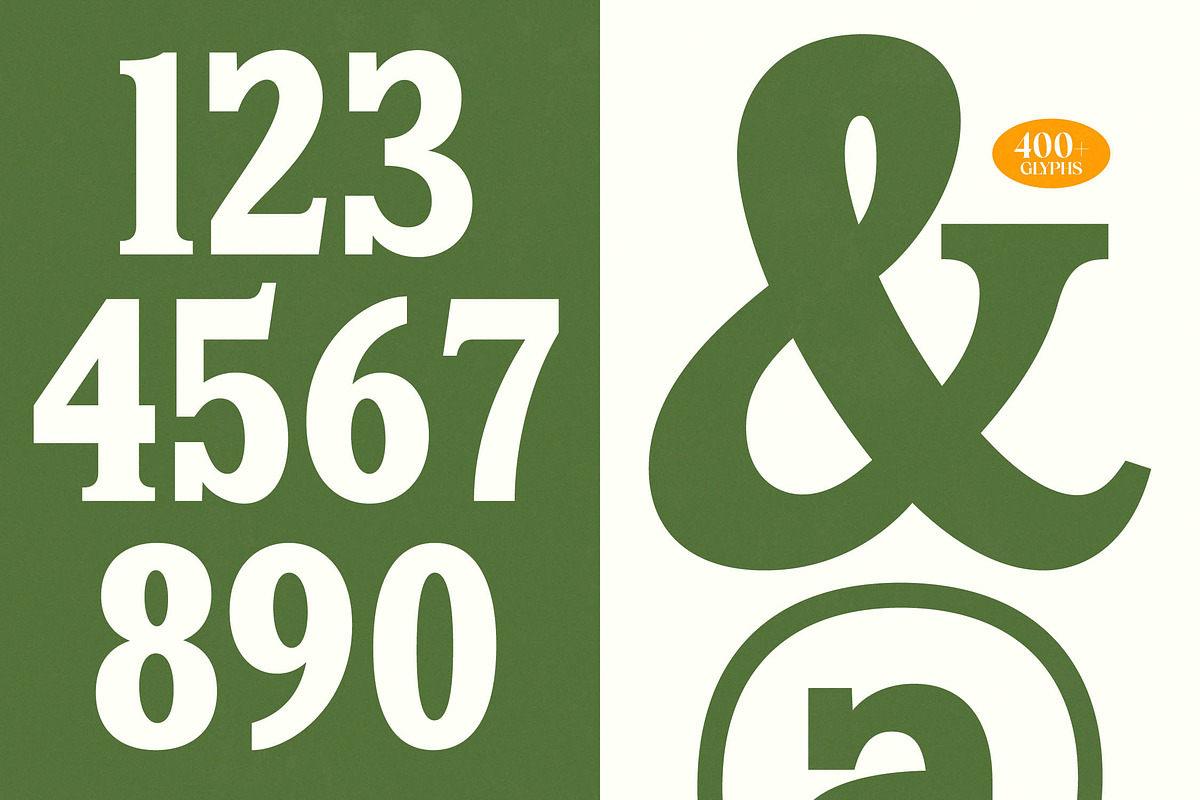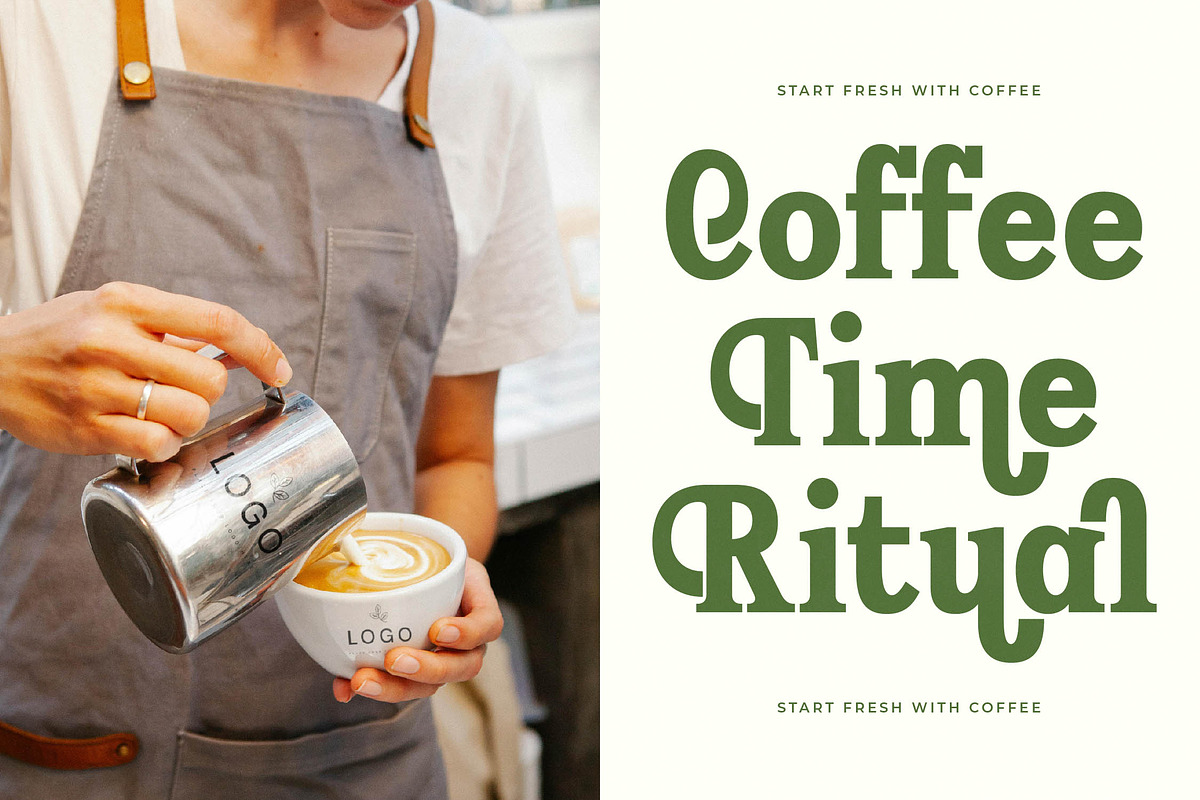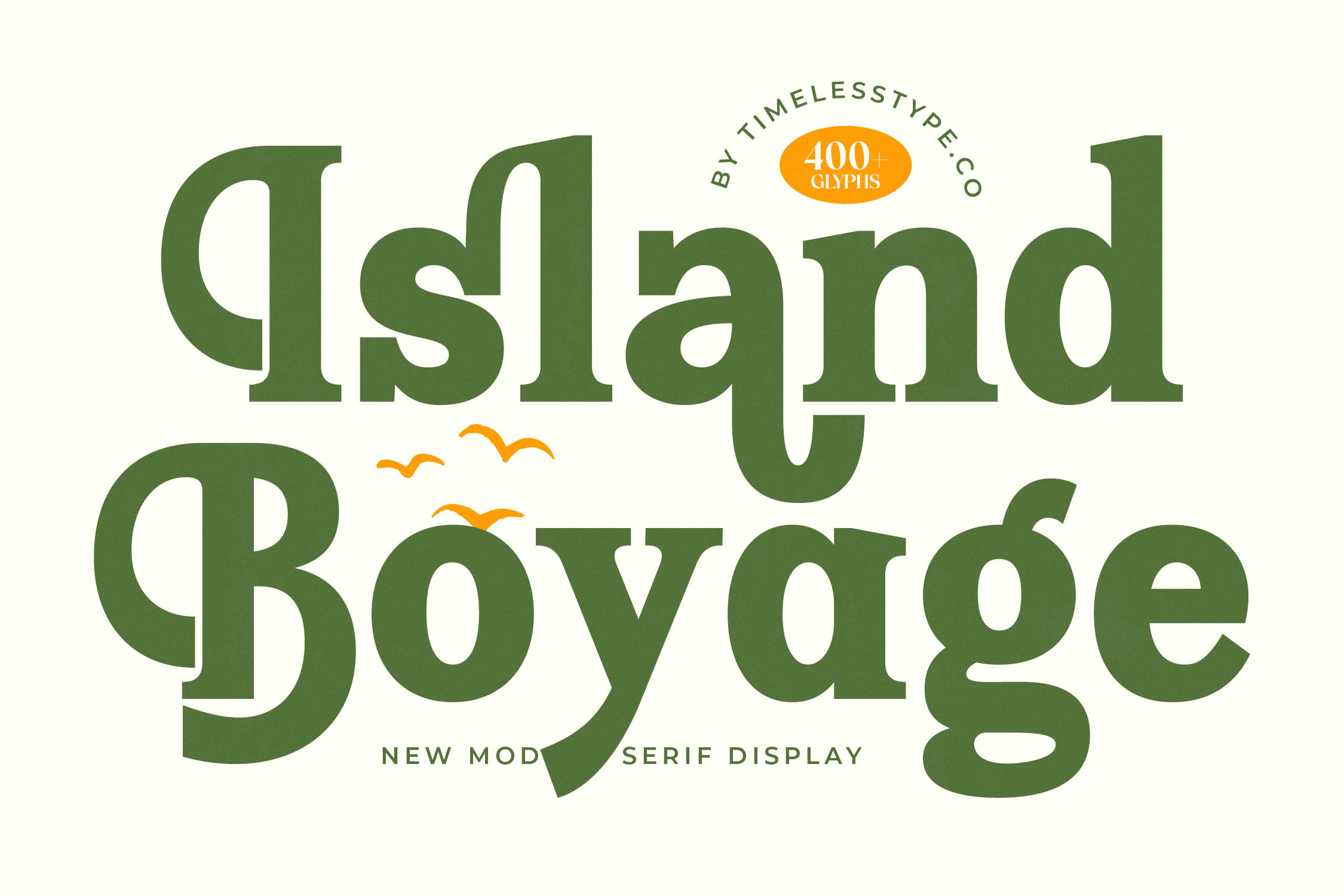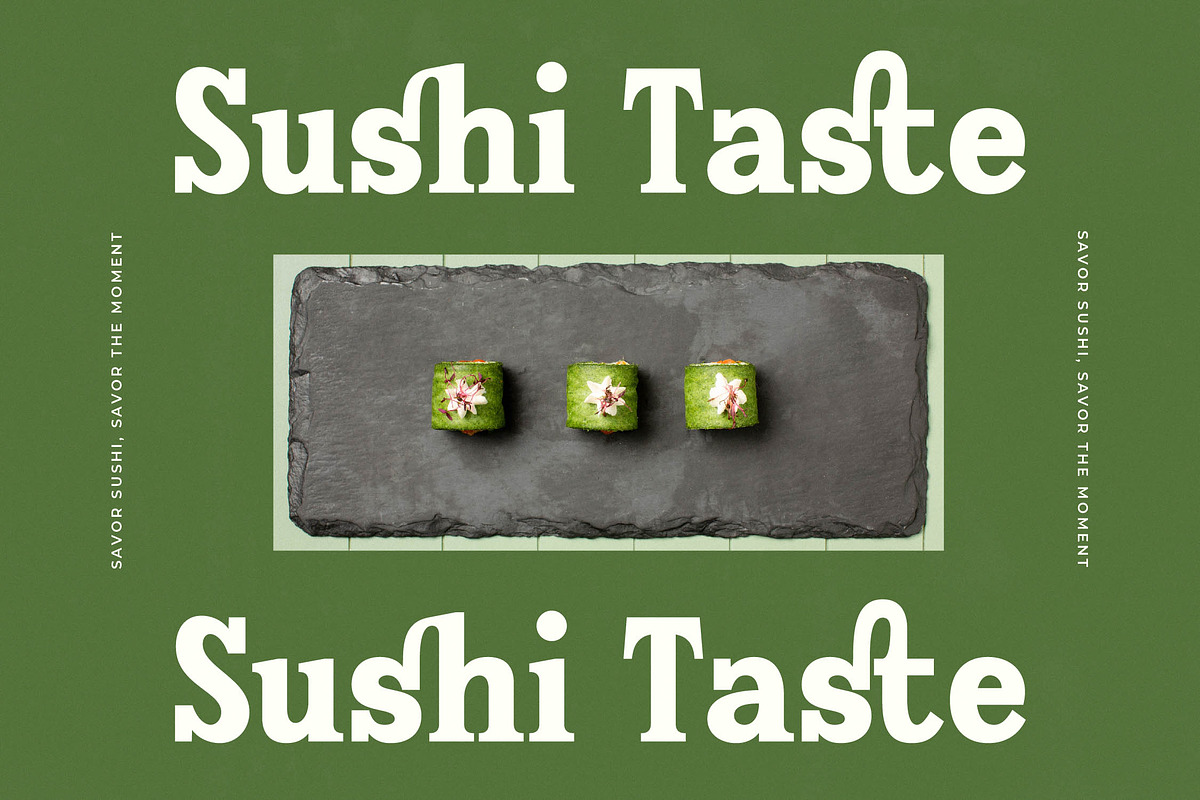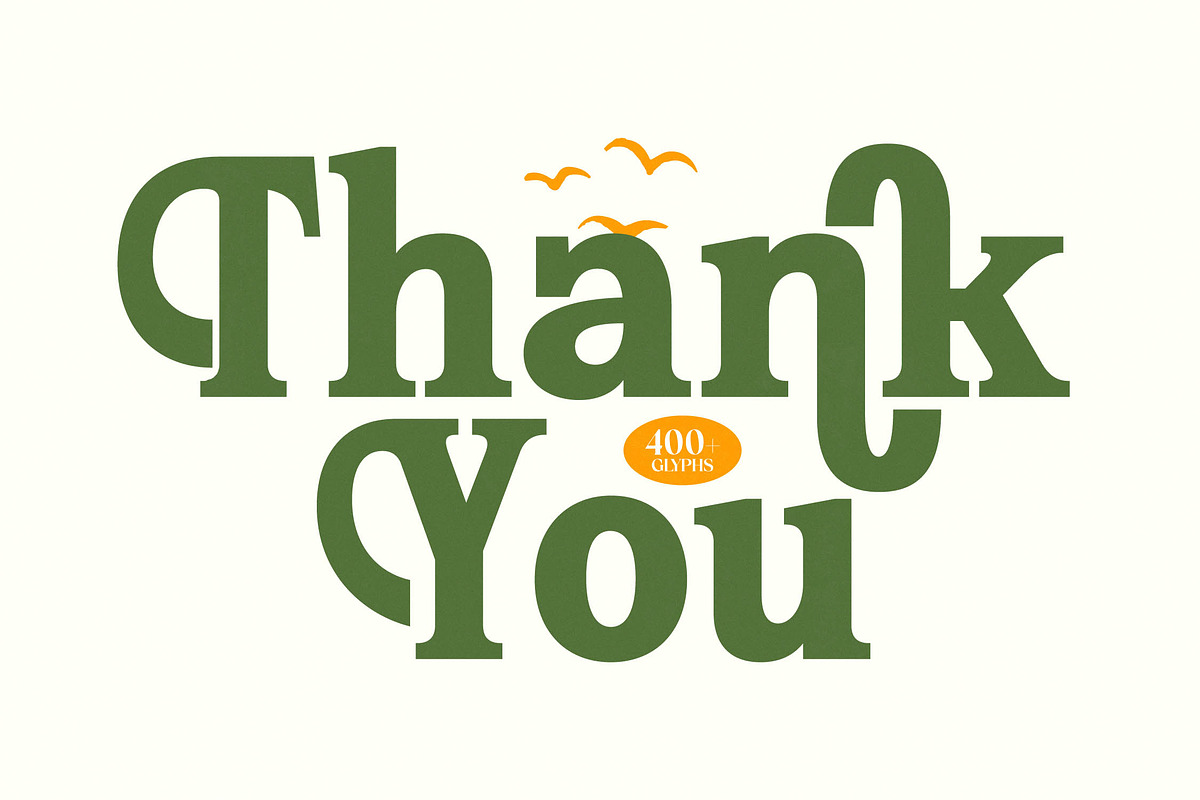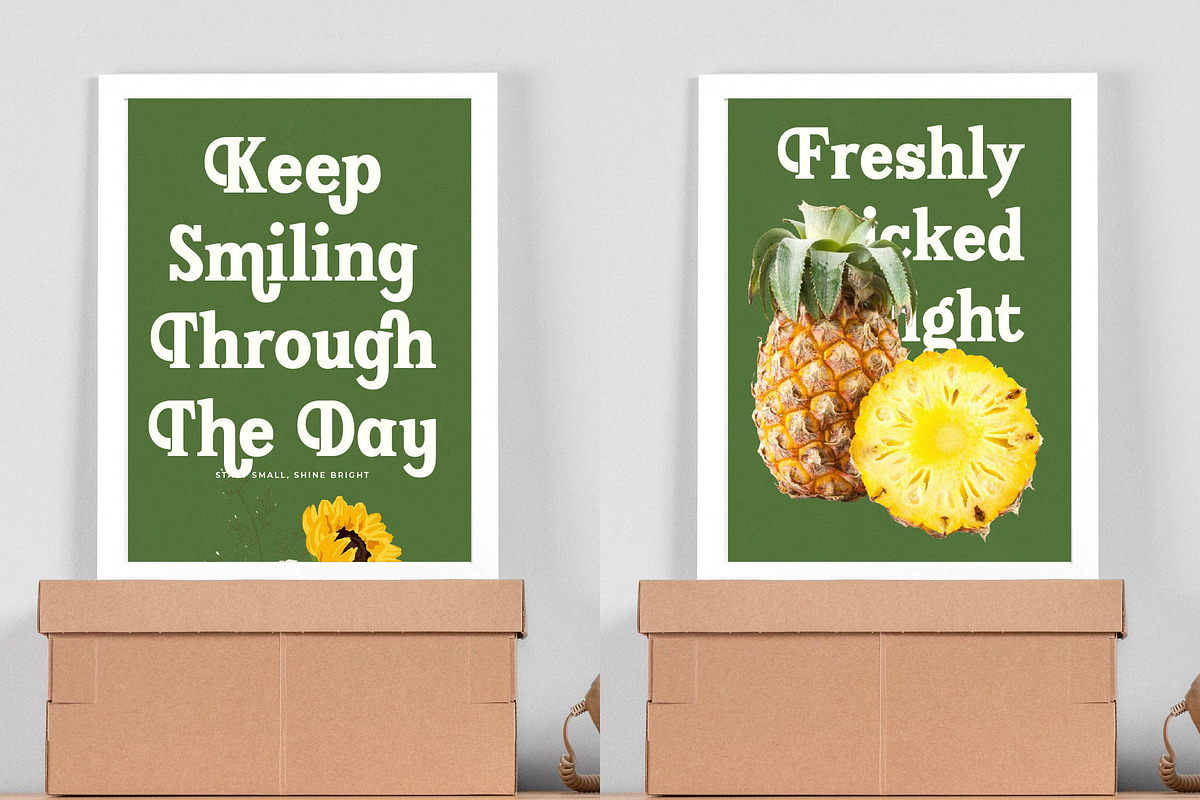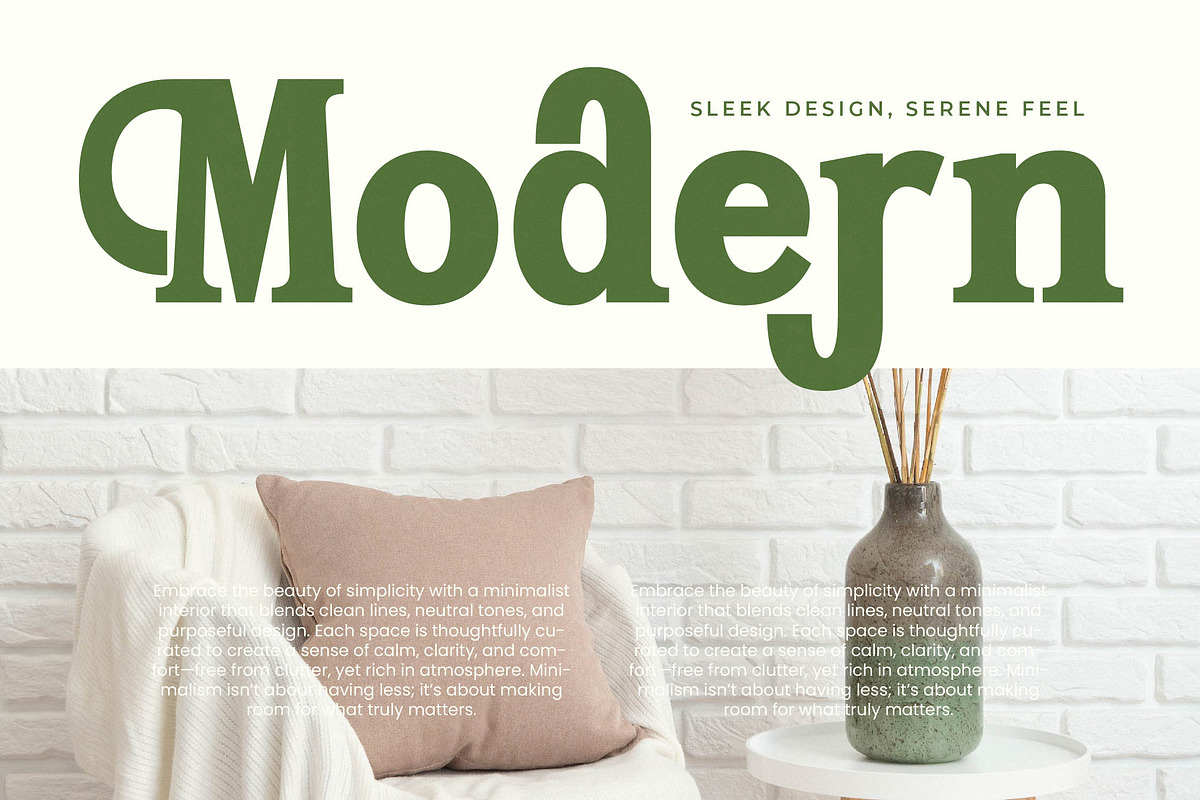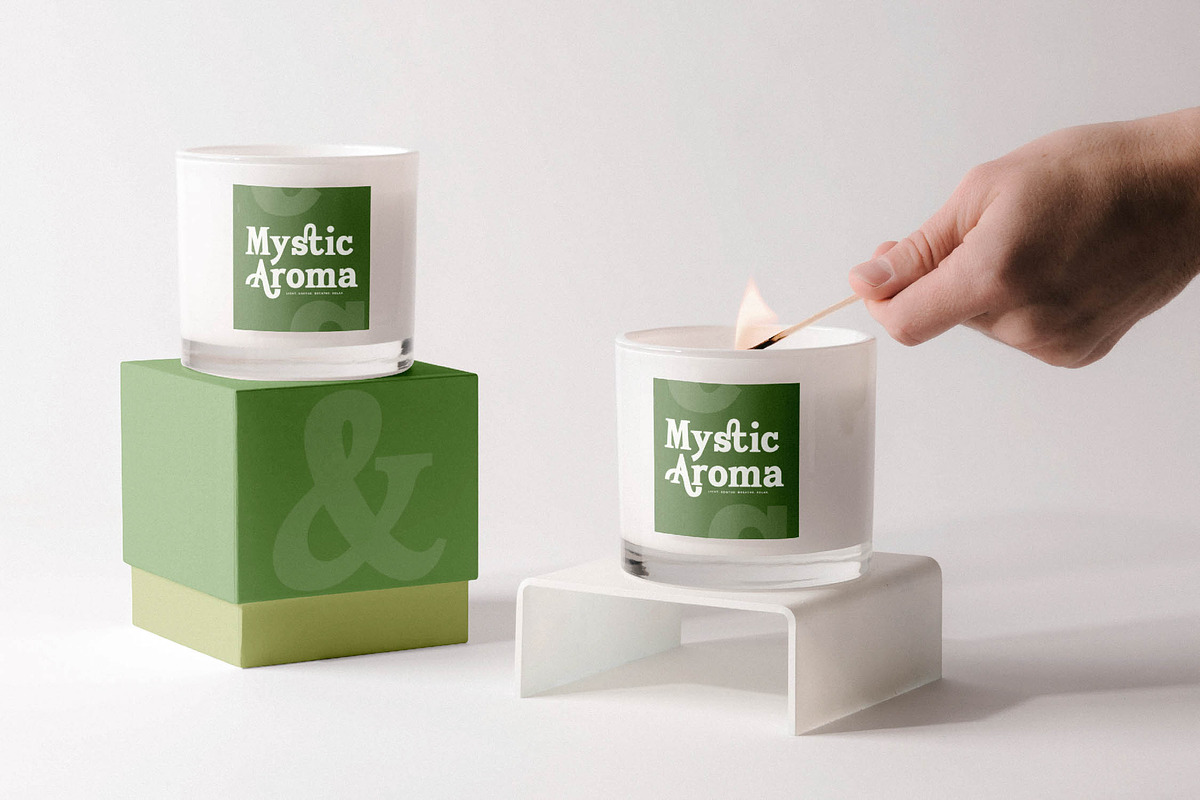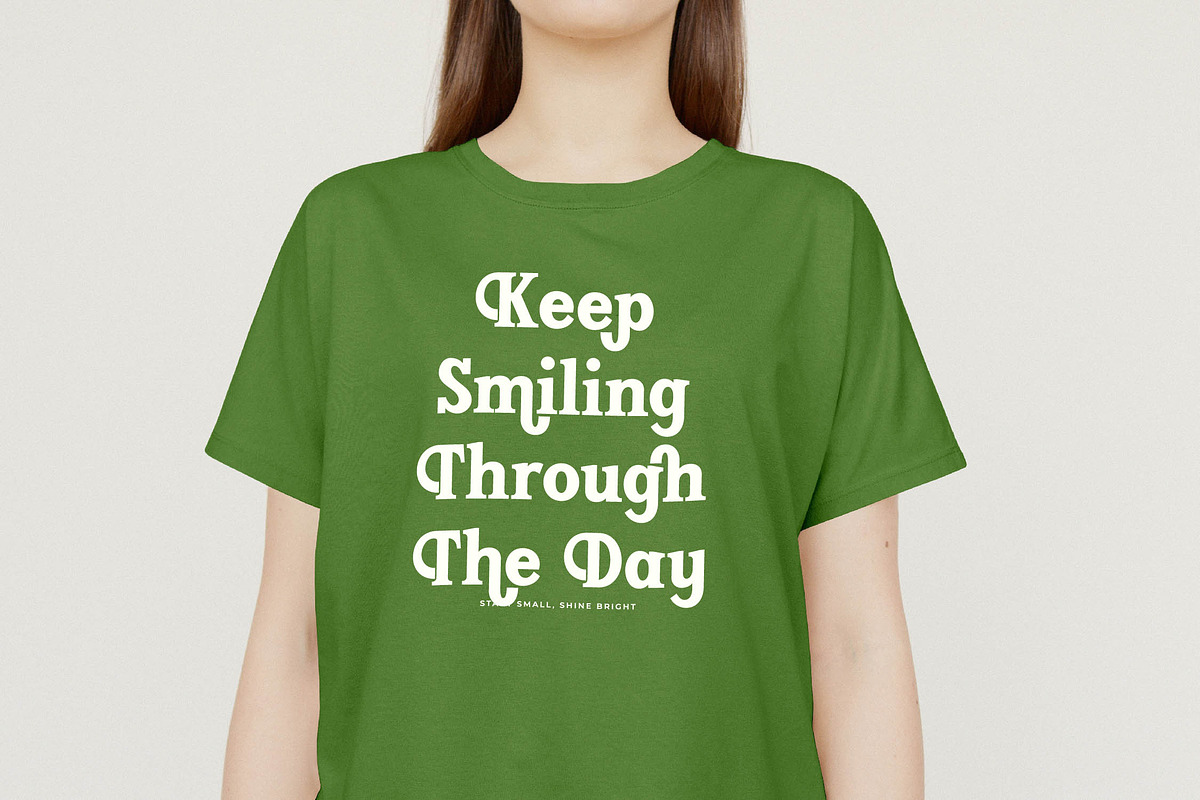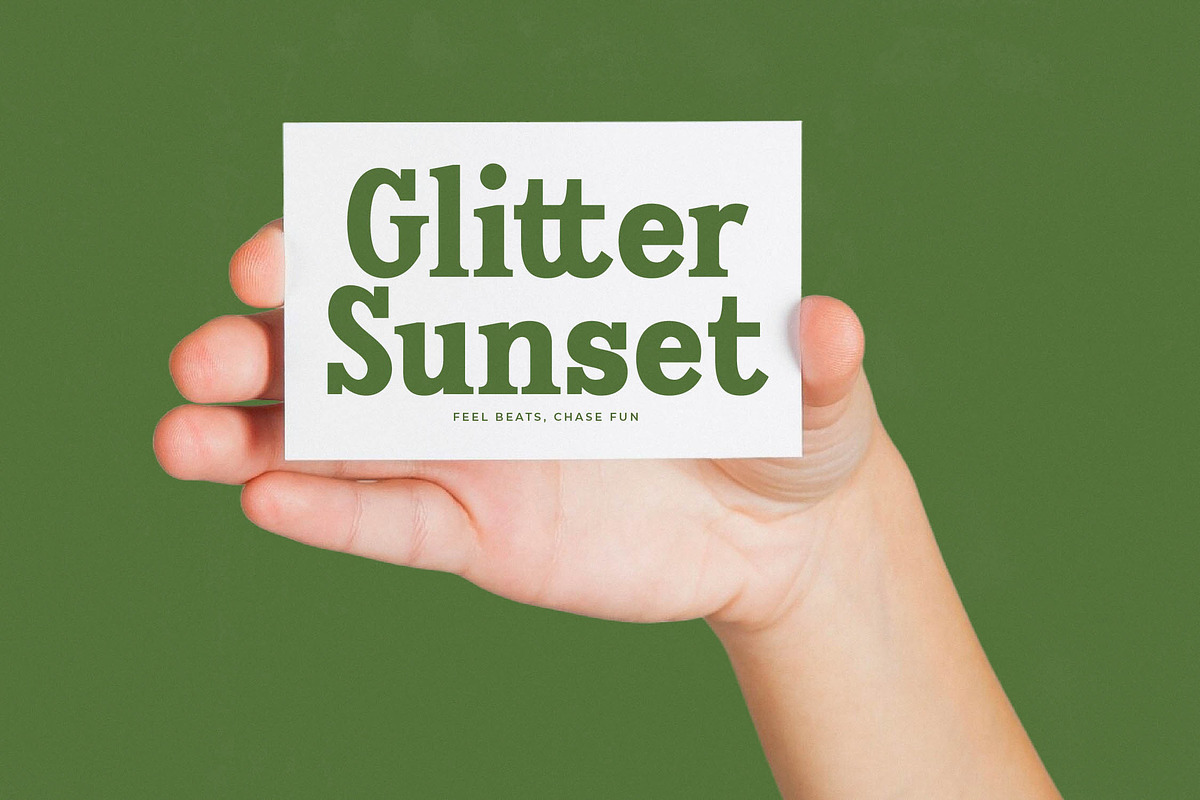
Island Boyage Modern Serif Font
Experience the effortless elegance of Island Boyage, a typeface that captures the spirit of a refined coastal getaway. This stunning display serif brings a sense of timeless sophistication to every layout it touches.
Inspired by the rhythmic ebb and flow of the ocean and the sun-drenched aesthetics of vintage travel posters, this font bridges the gap between organic charm and contemporary refinement. It evokes a feeling of wanderlust and high-end leisure, perfect for brands that tell a story.
As a modern serif display, this typeface delivers a powerful branding impact through its unique silhouette and high-contrast serif details. It is the ultimate editorial font for those seeking luxury typography that commands attention without being overwhelming.
Perfectly aligned with the current modern serif trend, this font provides character-driven typography that stands out in a crowded market. It is an essential addition to any creative toolkit looking for the latest editorial display fonts that define high-end aesthetics.
This versatile face is tailor-made for high-impact logo design and comprehensive branding projects that require a touch of class. From luxury packaging and high-street fashion campaigns to sophisticated wedding stationery and editorial layouts, its applications are endless.
Boasting over 400 glyphs, the set includes a rich variety of ligatures and unique alternates to customize your text. With beautiful swashes and full multilingual support for international characters, it ensures your message reaches a global audience with style.